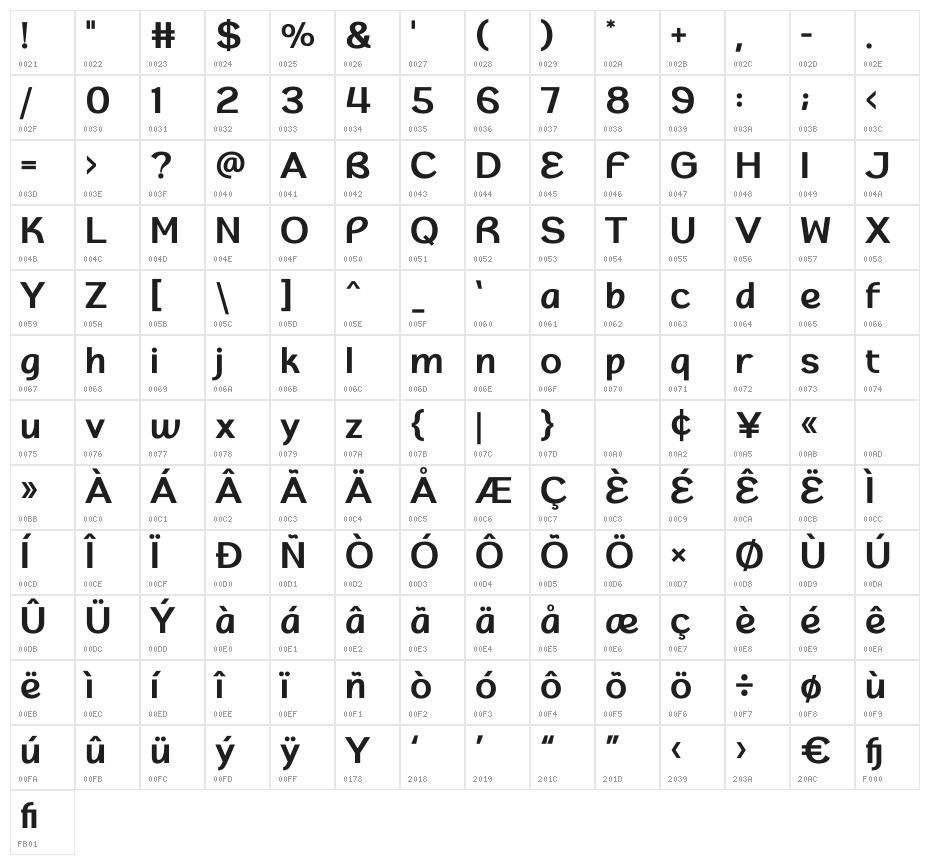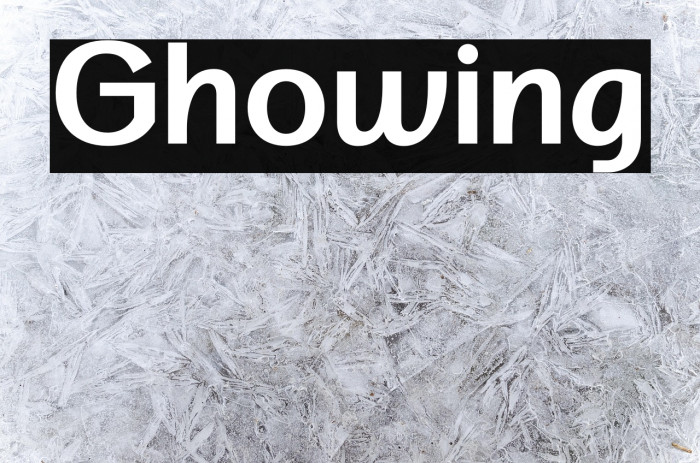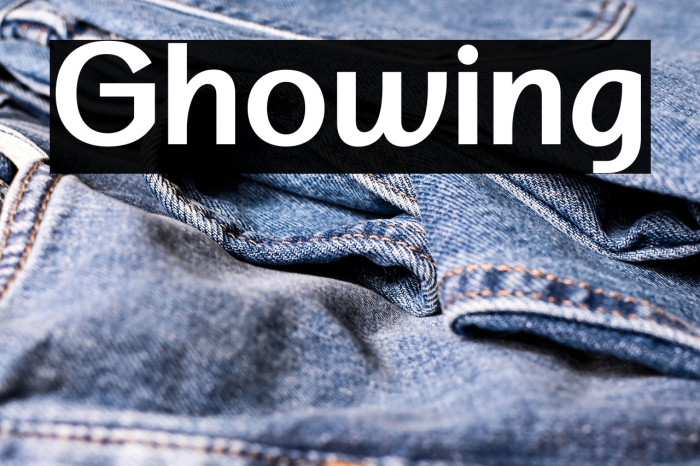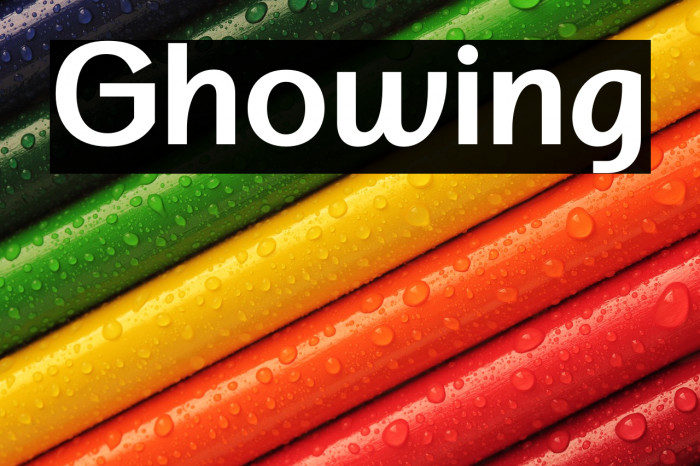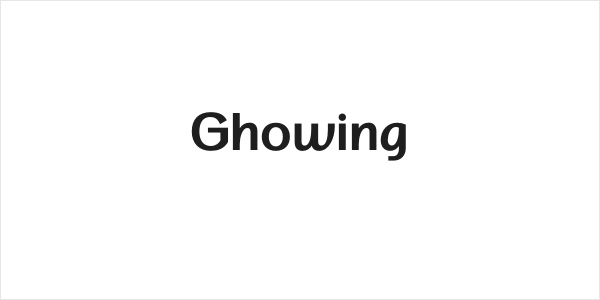
Ghowing Font
Ghowing Description
This font features a clean and modern sans-serif design with smooth curves and a balanced structure. The uppercase letters are bold and assertive, while the lowercase letters maintain a consistent flow, enhancing readability. The numerals are clear and distinct, making them suitable for various applications. Special characters are well-integrated, maintaining the font's overall aesthetic. The design is versatile, suitable for both digital and print media, offering a professional yet approachable appearance.
| Use Case | Headlines, Body text, Logos |
| Proposed Projects | Ideal for branding, web design, advertising, and editorial projects. |